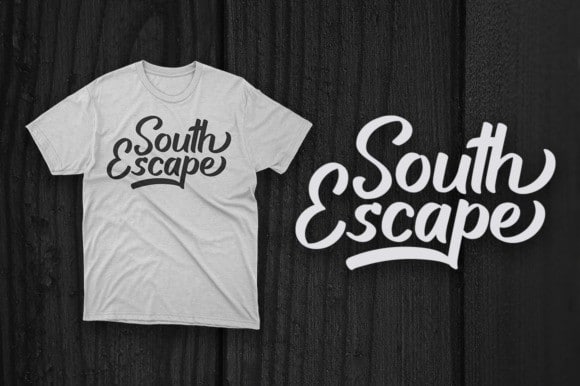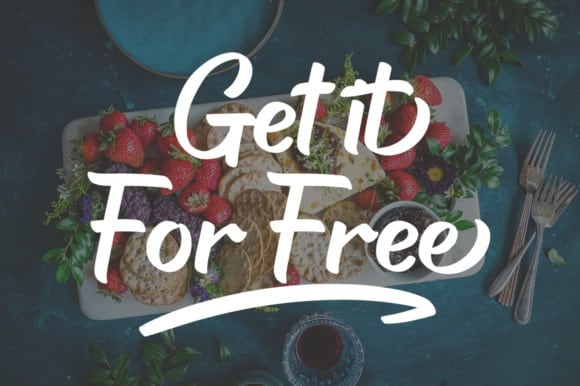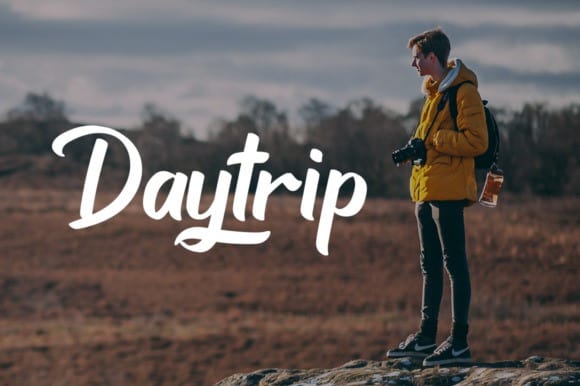
Haigl Rapture Script Font
The new Haigl Rapture Script Font model you can get now! the script has been given a combination of fantasy and handwritten ink. It’s designed and shared by agamous. This Font a flowing handwritten typeface, described by an elegant touch, perfect for your favorite projects. Fall in love with its incredibly distinct and timeless style and use it to create spectacular designs!